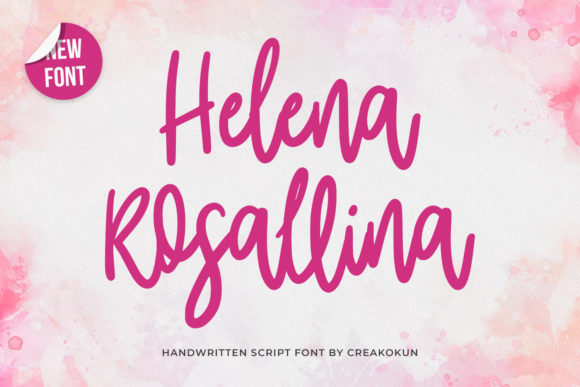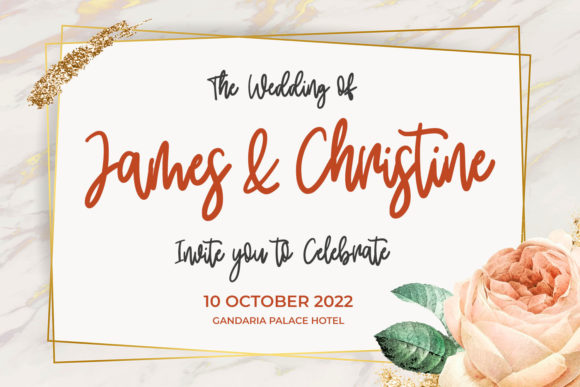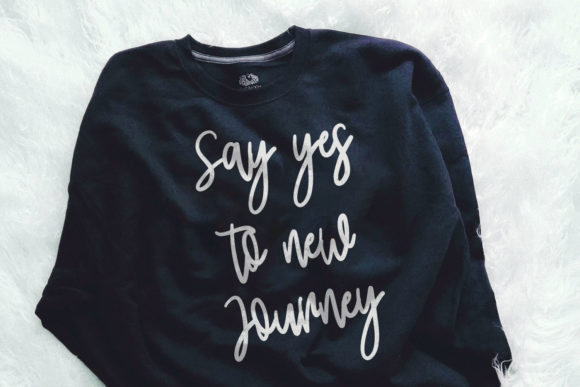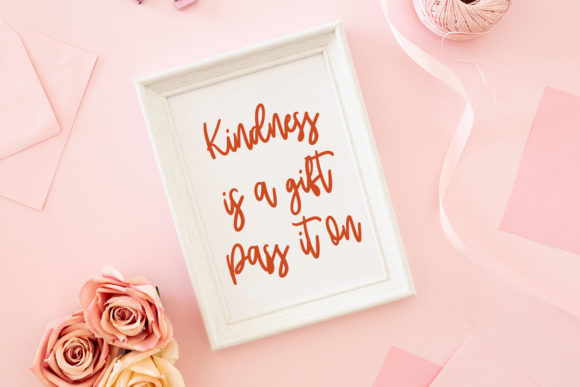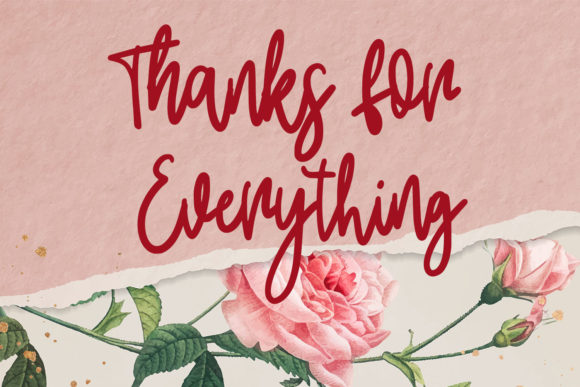
About Helena Rosallina Font
Helena Rosallina is a relaxed and adaptable handwritten font. It has beautiful and well balanced characters and as a result, it matches a wide pool of designs. Add it to your most creative ideas and notice how it makes them come alive!